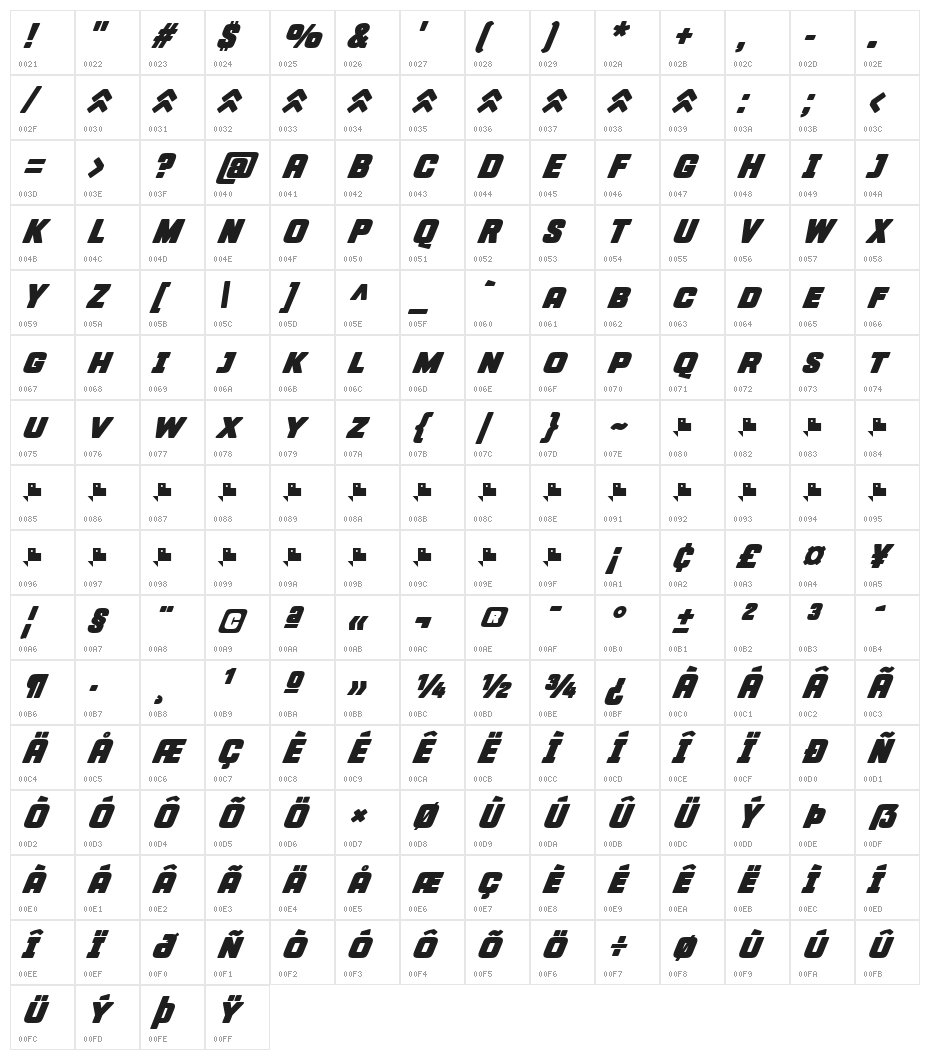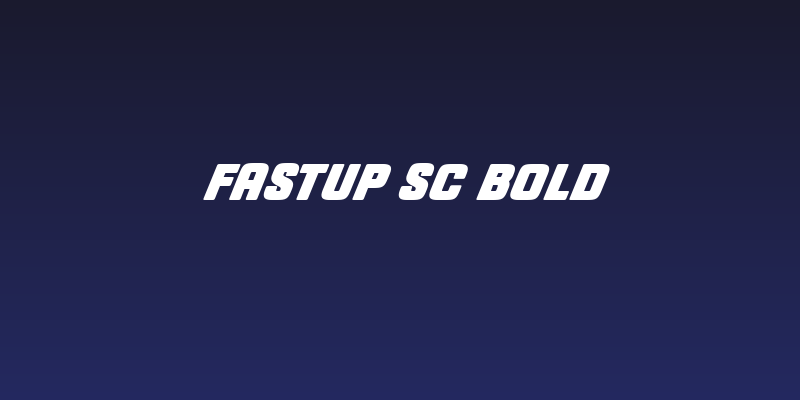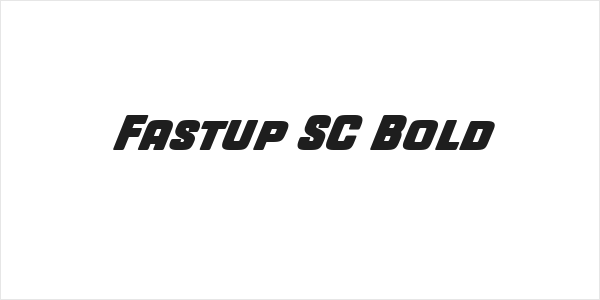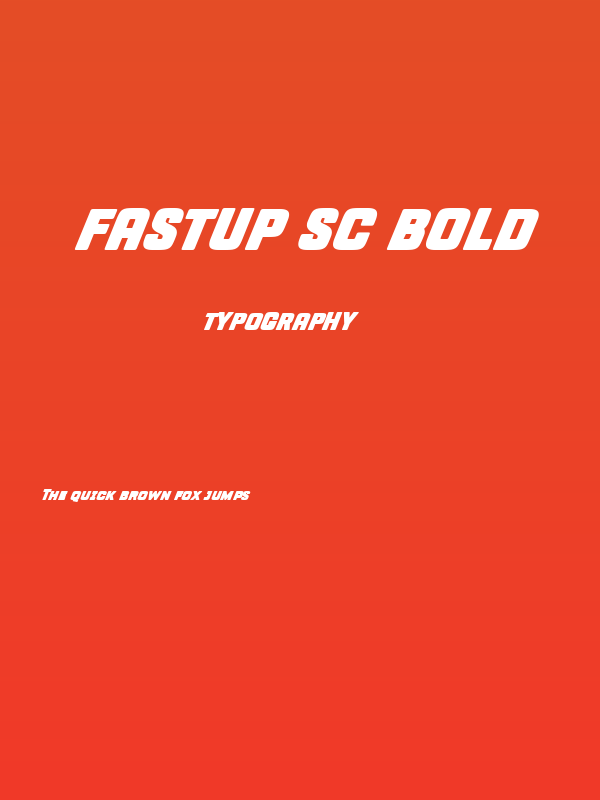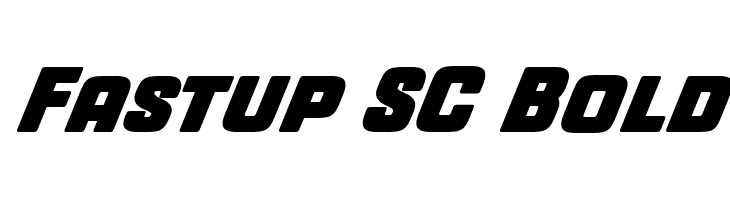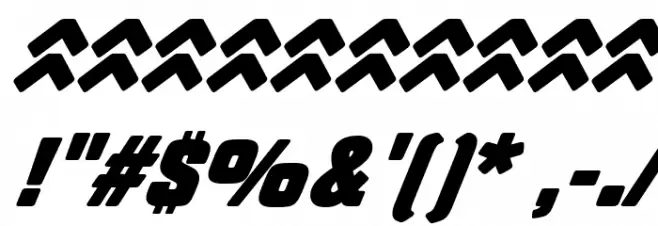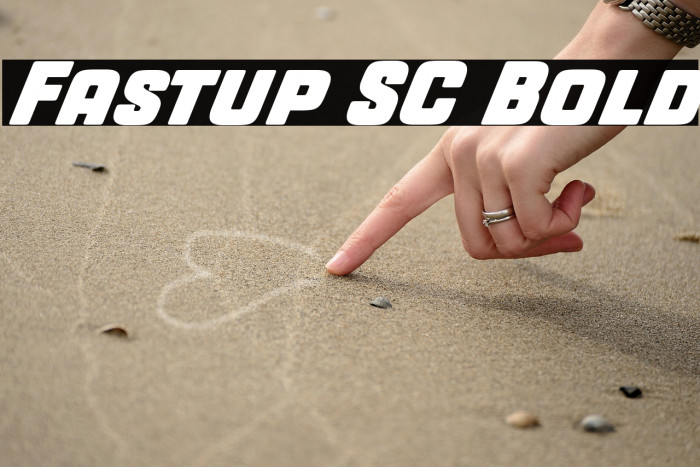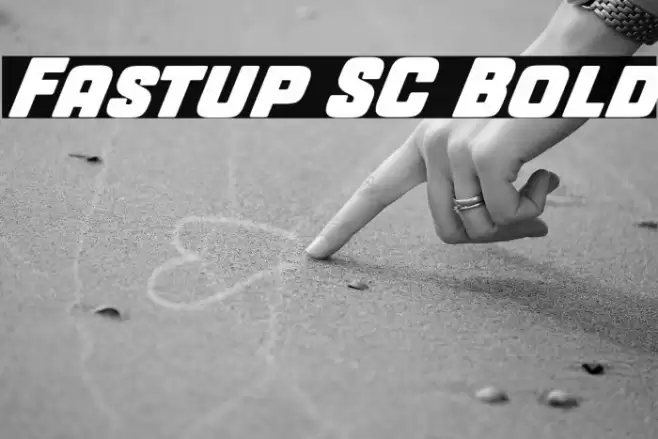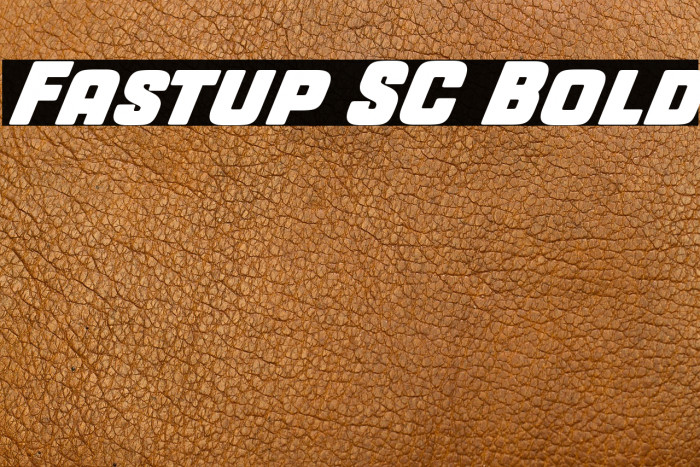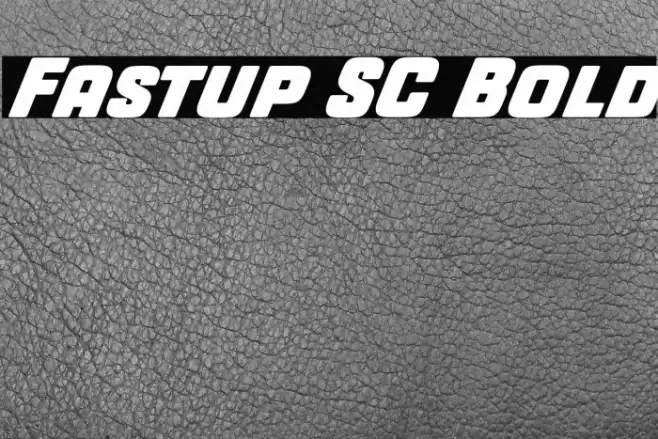
Fastup SC Bold Font
Fastup Regular and Small Caps is available in two weights (Regular and Bold), geometric design fonts, with a rounded finish on the vertices that provides warmth, with short ascenders and descenders offers a more compact set of letters, the 22° inclination
| Projets proposés | Ideal for sports branding, action movie posters, dynamic advertisements, and modern logo designs. |